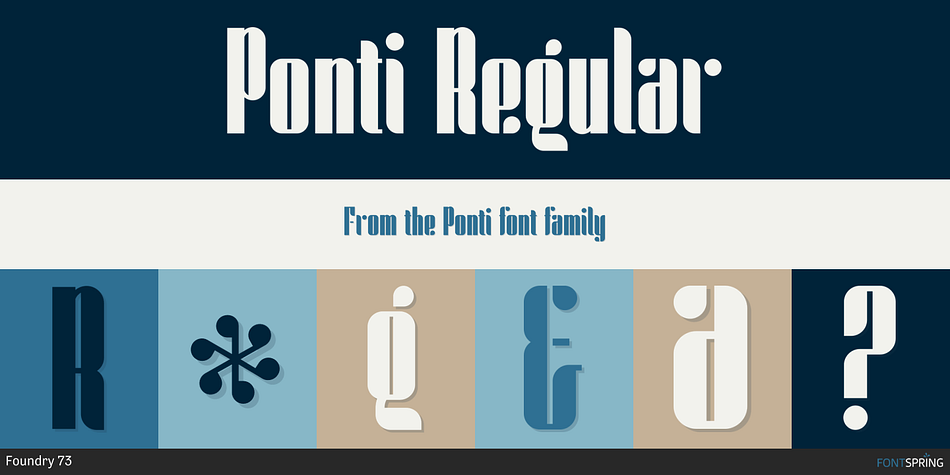
Ponti Regular
Designed by Brian Toth, Ponti is a display sans, retro and stencil font family. This typeface has sixteen styles and was published by Foundry 73.
A modern retro modular typeface that was inspired by Giovanni “Gio” Ponti’s patterns. This typeface comes in four weights, Light, Regular, Medium and Bold. With four styles, Regular, Italic, Stencil, and Stencil Italic. This incredible condensed modern, playful typeface has tons of personality. Great for display purposes and handy for small blocks of copy.
• Four weights and four styles (Regular, Italic, Stencil, and Stencil Italic)
• Full Uppercase and Lowercase A to Z character set
• Numbers and mathematical symbols
• Special characters and full multilingual support set
• Kerning Pairs
• Ligatures